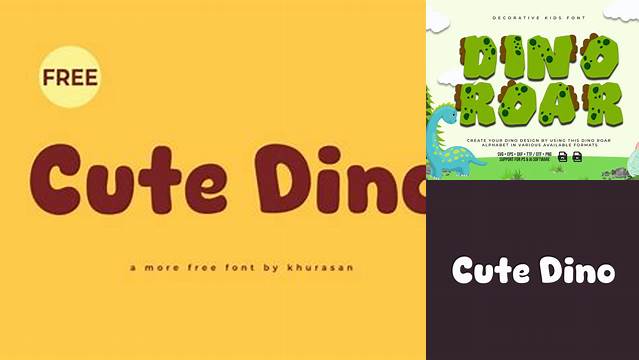
Cute Dino Fonts: Free Download For Adorable Designs
Hey guys! Are you looking to add some roar-some charm to your next project? Well, you've come to the right place! In this article, we're diving deep into the world of free font cute dino. We’ll explore everything from where to find these delightful fonts to how to best use them in your designs. Get ready to inject some prehistoric personality into your work!
1. Discovering Free Cute Dino Fonts
So, you're on the hunt for a free font cute dino? Awesome! The first step is knowing where to look. Many websites offer a variety of fonts for free download, but it's crucial to ensure they come with the right licensing for your intended use. Sites like DaFont, FontSpace, and Creative Fabrica (often with free sections) are great starting points. When browsing, use specific keywords like “dino font,” “cartoon dinosaur font,” or “prehistoric typeface” to narrow down your search. Always check the license agreement; some fonts are free for personal use but require a commercial license for business projects. Finding the perfect free font cute dino often involves a bit of digging, but trust me, the effort is worth it when you see that adorable typography bringing your designs to life. Remember to organize your downloaded fonts in a dedicated folder to keep everything tidy. Also, consider using a font management tool to easily activate and deactivate fonts as needed, preventing your system from becoming cluttered. Don’t forget to back up your font collection regularly to avoid losing those precious free font cute dino finds!
3. Using Dino Fonts in Graphic Design
Okay, you've got your free font cute dino and you've made sure you're all clear on the licensing. Now, let's get to the fun part: using these adorable fonts in your graphic designs! Dino fonts are perfect for a wide range of projects, from children's books and birthday invitations to educational materials and fun branding. When incorporating a free font cute dino into your design, consider the overall aesthetic you're aiming for. Do you want a playful, cartoonish vibe, or something a bit more sophisticated and subtle? The font you choose should complement the other elements of your design, such as colors, images, and layout. Pay attention to the font size and spacing to ensure readability. A cute dino font might be perfect for a headline, but it might not be the best choice for body text. Experiment with different font combinations to find the perfect balance. For example, you could pair a bold dino font with a simple sans-serif font for a clean and modern look. Don't be afraid to get creative and have fun with it! After all, design is all about expressing your unique vision. Always ensure your final design looks great across different devices and platforms.
4. Cute Dino Font for Kids' Books
Imagine a children's book brimming with adorable dinosaur illustrations and a free font cute dino bringing the story to life! These fonts are an excellent choice for kids' books, adding a playful and engaging touch to the text. When selecting a free font cute dino for a children's book, prioritize readability. Choose a font that is clear, easy to understand, and visually appealing to young readers. Avoid overly decorative or complex fonts that might be difficult for children to decipher. Consider the age range of your target audience when making your font selection. A bolder, more cartoonish font might be suitable for younger children, while a slightly more refined font could work well for older kids. Think about how the font will interact with the illustrations in the book. The font should complement the artwork, enhancing the overall aesthetic and creating a cohesive reading experience. Experiment with different font sizes and styles to find the perfect balance between readability and visual appeal. Use the free font cute dino creatively to highlight important words or phrases, adding emphasis and excitement to the story. Remember, the goal is to create a book that is both enjoyable to read and visually captivating for young readers. Make sure the font aligns with the book's theme and tone, creating a magical world for children to explore.
5. Dino Fonts for Birthday Invitations
Planning a dinosaur-themed birthday party? A free font cute dino is the perfect way to set the tone for a roaring good time! Using a fun and playful dino font on your birthday invitations will instantly grab attention and get guests excited about the celebration. When designing your invitations, choose a free font cute dino that reflects the personality of the birthday child. Is he or she a fan of T-Rex, Stegosaurus, or Triceratops? Select a font that captures the essence of their favorite dinosaur. Incorporate dinosaur-themed colors into your design, such as greens, browns, and oranges, to create a cohesive look. Use the font creatively to highlight key information, such as the date, time, and location of the party. Consider adding fun dinosaur-themed graphics or illustrations to enhance the overall design. A free font cute dino can also be used to create personalized thank-you notes after the party, adding a special touch of gratitude. Make sure the font is legible and easy to read, even for younger guests. Remember, the invitation is the first impression guests will have of the party, so make it memorable and fun! Also, ensure that all the important details are clear and concise.
6. Educational Materials with Dino Fonts
Who says learning can't be fun? Inject some prehistoric excitement into your educational materials with a free font cute dino! These fonts are a fantastic way to engage students and make learning more enjoyable. Whether you're creating worksheets, presentations, or classroom decorations, a free font cute dino can add a touch of whimsy and creativity. When selecting a font for educational materials, prioritize readability. Choose a font that is clear, easy to understand, and appropriate for the age group you're targeting. Avoid overly decorative or complex fonts that might distract students or make the text difficult to read. Use the font strategically to highlight key concepts, vocabulary words, or important information. Consider incorporating dinosaur-themed visuals or illustrations to complement the font and enhance the overall learning experience. A free font cute dino can also be used to create fun and engaging activities, such as dinosaur-themed word searches, crossword puzzles, or coloring pages. Remember, the goal is to create educational materials that are both informative and entertaining. A well-chosen font can make a big difference in capturing students' attention and fostering a love of learning. Ensure that the materials are age-appropriate and aligned with the curriculum standards.
7. Branding with a Dino Theme
Thinking of creating a brand with a dinosaur theme? A free font cute dino can be a game-changer! Whether you're launching a toy store, a children's clothing line, or a dinosaur-themed entertainment venue, the right font can help you create a memorable and distinctive brand identity. When choosing a free font cute dino for branding purposes, consider your target audience and the overall message you want to convey. Do you want your brand to be playful, educational, or adventurous? Select a font that aligns with your brand values and resonates with your target market. Think about how the font will be used across different platforms, from your logo and website to your marketing materials and social media channels. Ensure that the font is legible and scalable, so it looks great in both small and large sizes. A free font cute dino can also be incorporated into your brand's visual identity through custom illustrations, patterns, or animations. Remember, your brand is more than just a logo or a font; it's the sum of all the experiences customers have with your business. Make sure your branding is consistent, memorable, and true to your brand values. Also, protect your brand assets by registering your logo and trademark.
8. Logo Design with Dino Fonts
Creating a logo that roars with personality? Consider using a free font cute dino! A well-chosen dino font can add a unique and memorable touch to your logo, making it stand out from the competition. When designing a logo with a dino font, keep in mind that the font should be legible and scalable. A logo needs to look great whether it's on a business card or a billboard. The free font cute dino you choose should reflect the brand's personality. Pair the font with appropriate colors and imagery to enhance the overall design and convey the right message. If the logo is for a children's product, a playful and cartoonish dino font might be suitable. For a more serious brand, a subtle and stylized dino font could be a better choice. Remember, a logo is often the first thing people see, so make sure it's memorable and impactful. Also, check that the font is licensed for commercial use to avoid legal issues down the line. A strong logo helps build brand recognition and customer loyalty.
9. Dino Fonts for Websites
Want to make your website stand out with a prehistoric twist? Incorporating a free font cute dino can be a fun and engaging way to add personality and charm. However, it's essential to use dino fonts strategically on your website to ensure readability and user experience. When selecting a free font cute dino for your website, consider the overall design and target audience. A playful and cartoonish font might be perfect for a children's website, while a more refined font could be suitable for a business or educational site. Use dino fonts sparingly, primarily for headings, titles, or decorative elements. Avoid using them for body text, as they can be difficult to read in large blocks. Optimize the font for web use by using web-safe formats and ensuring it loads quickly. Test the font on different devices and browsers to ensure it displays correctly. A free font cute dino can also be incorporated into your website's graphics, illustrations, or animations. Remember, your website is your online storefront, so make sure it's visually appealing, easy to navigate, and provides a positive user experience. Keep the design consistent and professional.
10. T-Rex Inspired Typography
Unleash the king of the dinosaurs with T-Rex inspired typography! This type of free font cute dino embodies the strength and ferocity of the mighty Tyrannosaurus Rex. Consider fonts with sharp, angular edges and bold strokes to mimic the powerful presence of this iconic dinosaur. T-Rex inspired fonts can be used to create a sense of adventure and excitement in your designs. They are perfect for projects that require a strong and commanding visual impact, such as posters, banners, and logos. When using T-Rex inspired typography, pair it with colors like deep greens, browns, and reds to evoke the prehistoric era. Integrate these fonts into designs for video games, adventure parks, or even educational materials about dinosaurs. Always ensure that the font is legible and appropriate for the intended audience. Remember, the goal is to capture the essence of the T-Rex without sacrificing readability. Use this free font cute dino to add a powerful and memorable touch to your creative projects.
11. Stegosaurus Themed Fonts
Bring the gentle giant to life with Stegosaurus themed fonts! These fonts are inspired by the iconic plated dinosaur, known for its distinctive back plates and peaceful nature. Look for fonts with rounded edges, soft curves, and playful details to capture the essence of the Stegosaurus. Stegosaurus themed fonts are perfect for projects that require a friendly and approachable visual style. They can be used in designs for children's books, educational materials, and nature-themed events. When using Stegosaurus themed fonts, consider incorporating colors like greens, blues, and earthy tones to reflect the dinosaur's natural habitat. Combine these fonts with illustrations of the Stegosaurus and its environment to create a cohesive and charming design. Always ensure that the font is easy to read and appropriate for the intended audience. Use this free font cute dino to add a touch of whimsy and wonder to your creative projects.
12. Triceratops Lettering Styles
Embrace the charm of the Triceratops with unique lettering styles! These fonts are inspired by the three-horned dinosaur, known for its distinctive frill and sturdy build. Look for fonts with bold strokes, rounded terminals, and playful details to capture the essence of the Triceratops. Triceratops lettering styles are perfect for projects that require a friendly and approachable visual style. They can be used in designs for children's books, educational materials, and dinosaur-themed parties. When using Triceratops lettering styles, consider incorporating colors like greens, browns, and earthy tones to reflect the dinosaur's natural environment. Combine these fonts with illustrations of the Triceratops and its habitat to create a cohesive and engaging design. Always ensure that the font is easy to read and appropriate for the intended audience. Use this free font cute dino to add a touch of fun and adventure to your creative projects.
13. Brachiosaurus Inspired Typefaces
Reach new heights with Brachiosaurus inspired typefaces! These fonts are inspired by the towering herbivore, known for its long neck and gentle demeanor. Look for fonts with tall, slender strokes, elegant curves, and graceful details to capture the essence of the Brachiosaurus. Brachiosaurus inspired typefaces are perfect for projects that require a sense of wonder and inspiration. They can be used in designs for nature documentaries, science museums, and educational resources. When using Brachiosaurus inspired typefaces, consider incorporating colors like blues, greens, and earthy tones to reflect the dinosaur's natural habitat. Combine these fonts with illustrations of the Brachiosaurus and its environment to create a visually stunning and educational design. Always ensure that the font is easy to read and appropriate for the intended audience. Use this free font cute dino to add a touch of elegance and inspiration to your creative projects.
14. Pterodactyl Themed Fonts
Soar through the skies with Pterodactyl themed fonts! These fonts are inspired by the flying reptile, known for its impressive wingspan and aerial agility. Look for fonts with flowing lines, sharp angles, and dynamic details to capture the essence of the Pterodactyl. Pterodactyl themed fonts are perfect for projects that require a sense of adventure and freedom. They can be used in designs for aviation museums, travel agencies, and adventurous branding. When using Pterodactyl themed fonts, consider incorporating colors like blues, grays, and earthy tones to reflect the reptile's natural environment. Combine these fonts with illustrations of the Pterodactyl in flight to create a visually dynamic and engaging design. Always ensure that the font is easy to read and appropriate for the intended audience. Use this free font cute dino to add a touch of excitement and adventure to your creative projects.
15. Velociraptor Lettering Designs
Add a touch of cunning and speed with Velociraptor lettering designs! These fonts are inspired by the intelligent and agile dinosaur, known for its sharp claws and pack hunting behavior. Look for fonts with sharp angles, sleek lines, and dynamic details to capture the essence of the Velociraptor. Velociraptor lettering designs are perfect for projects that require a sense of excitement and adventure. They can be used in designs for action movies, video games, and thrilling marketing campaigns. When using Velociraptor lettering designs, consider incorporating colors like reds, blacks, and grays to reflect the dinosaur's fierce nature. Combine these fonts with illustrations of the Velociraptor in action to create a visually dynamic and engaging design. Always ensure that the font is easy to read and appropriate for the intended audience. Use this free font cute dino to add a touch of intensity and excitement to your creative projects.
16. Cartoon Dino Font Styles
Bring your projects to life with cartoon dino font styles! These fonts are designed to be playful, fun, and engaging, perfect for children's books, birthday invitations, and educational materials. Look for fonts with rounded edges, whimsical shapes, and bright colors to capture the essence of cartoon dinosaurs. Cartoon dino font styles are ideal for creating a lighthearted and cheerful atmosphere in your designs. Combine these fonts with illustrations of friendly dinosaurs to create a visually appealing and engaging experience for children. When using cartoon dino font styles, consider the age range of your target audience. Choose fonts that are easy to read and appropriate for young children. Always ensure that the font is legible and visually appealing. Use this free font cute dino to add a touch of whimsy and fun to your creative projects.
17. Prehistoric Typeface Options
Explore the ancient world with prehistoric typeface options! These fonts are inspired by the typography found on ancient tablets, cave paintings, and fossil records. Look for fonts with rough textures, eroded edges, and historical details to capture the essence of the prehistoric era. Prehistoric typeface options are perfect for projects that require a sense of history and authenticity. They can be used in designs for museums, documentaries, and educational materials about ancient civilizations and dinosaurs. When using prehistoric typeface options, consider incorporating colors like browns, grays, and earthy tones to reflect the ancient world. Combine these fonts with illustrations of fossils, artifacts, and ancient landscapes to create a visually immersive and educational experience. Always ensure that the font is legible and appropriate for the intended audience. Use this free font cute dino to add a touch of history and authenticity to your creative projects.
18. Dino Fonts for Commercial Use
Looking for dino fonts for your business projects? Free font cute dino options are available for commercial use, allowing you to add a touch of prehistoric charm to your branding, marketing, and advertising materials. When selecting a free font cute dino for commercial use, make sure to check the licensing agreement to ensure that you have the right to use the font for your intended purposes. Commercial licenses typically allow you to use the font in projects that generate income, such as logos, websites, and product packaging. Choose fonts that are legible, scalable, and appropriate for your target audience. Combine these fonts with illustrations of dinosaurs and other prehistoric elements to create a visually appealing and memorable brand identity. Always ensure that the font is consistent with your brand values and message. Use free font cute dino strategically to create a lasting impression on your customers.
19. Best Dino Fonts for Cricut
Calling all Cricut crafters! Discover the best dino fonts for Cricut projects and create adorable dinosaur-themed crafts, decorations, and personalized gifts. When selecting dino fonts for Cricut, choose fonts that are easy to cut and weed. Look for fonts with clean lines, simple shapes, and minimal details. Free font cute dino options that are specifically designed for cutting machines are ideal for Cricut projects. Combine these fonts with dinosaur-themed images and patterns to create unique and personalized crafts. Use different colors and materials to add depth and dimension to your designs. Always test the font before cutting to ensure that it cuts cleanly and accurately. Unleash your creativity with dino fonts and create memorable crafts for dinosaur enthusiasts of all ages. Also, ensure that the font is compatible with your Cricut machine and software.
20. Dinosaur Fonts for Procreate
Calling all digital artists! Enhance your Procreate artwork with unique dinosaur fonts! These fonts add a touch of prehistoric charm to your illustrations, lettering, and digital designs. When selecting dinosaur fonts for Procreate, choose fonts that are versatile, legible, and compatible with the Procreate app. Free font cute dino options that come in various styles, such as bold, italic, and outline, are perfect for creating dynamic and expressive artwork. Combine these fonts with dinosaur-themed illustrations and textures to create visually stunning and engaging designs. Experiment with different blending modes and effects to add depth and dimension to your artwork. Always ensure that the font is easy to read and appropriate for your target audience. Unleash your creativity with dinosaur fonts and bring your Procreate artwork to life. Also, ensure that the font is compatible with the Procreate app and your iPad.
21. Where to Download Dino Fonts
Finding the perfect dino font can be an adventure! There are numerous websites where you can download free font cute dino options to add personality to your projects. Reputable font websites often offer a wide variety of dinosaur-themed fonts, ranging from playful and cartoonish to bold and prehistoric. When downloading dino fonts, always check the licensing agreement to ensure that you have the right to use the font for your intended purposes. Some fonts are free for personal use, while others require a commercial license. Explore different font styles and sizes to find the perfect font for your design. Organize your downloaded fonts in a dedicated folder for easy access. Websites like DaFont and FontSpace are great starting points for finding free and high-quality dino fonts. Always scan downloaded files for viruses and malware before installing them on your computer. Happy font hunting!
22. Cute Dino Font Pairings
Choosing the right font pairings can elevate your design and create a harmonious visual experience. When using a free font cute dino, consider pairing it with complementary fonts that enhance readability and visual appeal. For example, pair a playful cartoon dino font with a simple sans-serif font for a clean and modern look. Combine a bold prehistoric font with a classic serif font for a touch of elegance and sophistication. Experiment with different font combinations to find the perfect balance for your project. Consider the overall theme and style of your design when selecting font pairings. Use font pairings to create visual hierarchy and highlight important information. A well-chosen font pairing can make your design more engaging and professional. Always ensure that the font pairings are legible and visually appealing to your target audience. Some popular font pairing tools can help you find harmonious font combinations. Explore different font pairings to unleash your creativity and create stunning designs.
23. Dino Fonts for Social Media
Want to make your social media posts stand out? Incorporate free font cute dino options into your graphics, captions, and stories to capture the attention of your audience. Dinosaur fonts can add a touch of whimsy, adventure, or prehistoric charm to your social media content. Use dino fonts strategically to highlight important information, create visual interest, and reinforce your brand identity. Consider the overall theme and tone of your social media account when selecting dino fonts. A playful cartoon dino font might be perfect for a children's brand, while a bold prehistoric font could be suitable for a science-related account. Always ensure that the font is legible and visually appealing on different devices and screen sizes. Use font pairings to create a cohesive and professional look. Incorporate dino fonts into your social media templates and graphics to maintain brand consistency. Engage your audience with dinosaur-themed content and captivating visuals. With the right dino font, you can make your social media posts roar!
24. Creating Custom Dino Fonts
Feeling creative? Why not try creating your own custom dino fonts? Designing your own fonts can be a fun and rewarding experience, allowing you to create unique and personalized typography for your projects. There are various font creation software and tools available, ranging from beginner-friendly options to professional-grade programs. Start by sketching out your dino font designs on paper or using a digital drawing tablet. Experiment with different shapes, sizes, and styles to capture the essence of dinosaurs. Use font creation software to digitize your designs and refine the details. Pay attention to kerning, spacing, and other technical aspects of font design to ensure readability and visual appeal. Consider licensing options if you plan to share or sell your custom dino fonts. Creating your own fonts can be a challenging but ultimately satisfying endeavor. Free font cute dino may be a great starting point but custom ones are truly unique!
25. The Psychology of Dino Fonts
The fonts you choose can have a significant impact on how your designs are perceived. Dino fonts, in particular, can evoke a range of emotions and associations, depending on their style and context. Playful cartoon dino fonts can create a sense of fun, joy, and nostalgia. Bold prehistoric fonts can convey strength, adventure, and a connection to the past. Consider the psychological effects of dino fonts when selecting typography for your projects. Choose fonts that align with your brand values and resonate with your target audience. A well-chosen dino font can enhance the emotional impact of your design and create a lasting impression. Understanding the psychology of fonts can help you make informed design decisions. Free font cute dino can influence moods and perceptions of a brand!
26. Dino Font Trends in 2024
Stay ahead of the curve by exploring the latest dino font trends in 2024! As design styles evolve, so do font preferences. In 2024, we're seeing a resurgence of playful and cartoonish dino fonts, as well as a growing interest in bold and futuristic prehistoric typography. Vintage-inspired dino fonts with a touch of retro charm are also gaining popularity. Keep an eye on emerging design trends to ensure that your dino font choices remain fresh and relevant. Consider incorporating these trends into your branding, marketing, and social media designs. Free font cute dino options are always evolving so keep up with the trend!
27. Dino Fonts for Print Materials
From brochures to posters, dino fonts can add a unique touch to your print materials. When selecting dino fonts for print, consider the size, resolution, and printing process. Choose fonts that are legible at different sizes and reproduce well in print. Avoid using overly thin or delicate fonts, as they may not print clearly. Always test your designs before printing to ensure that the dino fonts look their best. Consider the paper stock and ink colors when selecting dino fonts for print. Free font cute dino may look different printed than they do digitally!
28. The Future of Dino Fonts
What does the future hold for dino fonts? As technology advances and design styles evolve, we can expect to see even more innovative and creative dino font designs. Virtual reality and augmented reality may lead to new ways of experiencing and interacting with dino fonts. Artificial intelligence could be used to generate custom dino fonts based on specific parameters and preferences. The possibilities are endless! Stay tuned to the latest developments in font technology and design to discover the future of free font cute dino.
29. Common Mistakes When Using Dino Fonts
Even the most talented designers can make mistakes when using dino fonts. Some common errors include using too many dino fonts in a single design, selecting fonts that are difficult to read, and ignoring licensing agreements. Avoid these pitfalls by carefully considering your font choices, prioritizing readability, and always checking the licensing terms before using a dino font. Learn from your mistakes and continue to refine your design skills. With practice and attention to detail, you can master the art of using free font cute dino effectively.
30. Resources for Learning More About Dino Fonts
Ready to dive deeper into the world of dino fonts? There are numerous resources available to help you learn more about typography, font design, and dinosaur-themed fonts. Online tutorials, design blogs, and typography books can provide valuable insights and inspiration. Consider joining design communities and forums to connect with other designers and share your knowledge. Experiment with different dino fonts and techniques to develop your own unique style. With dedication and a passion for learning, you can become a dino font expert. Explore the world of free font cute dino with all the resources out there!